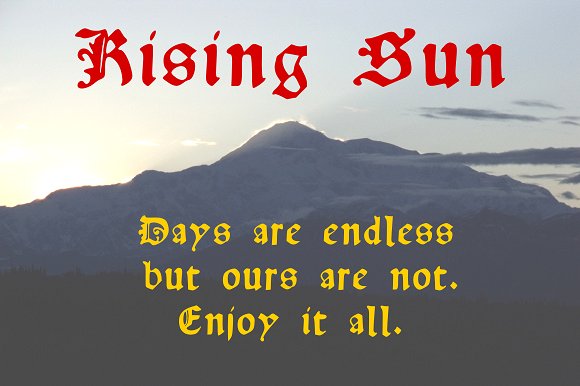
Rising Sun Font
Unveiling Rising Sun Font: A Journey Through Time and Typography
In a world where digital communication reigns supreme, fonts hold the power to transform words into art, to evoke emotions, and to transport readers to different eras and cultures. Enter Rising Sun Font, a captivating blackletter font family that takes you on a journey through time and typography.
Crafted by Proportional Lime, Rising Sun Font draws inspiration from the Soleil d'or printing concern in Paris, one of the few printing businesses that dared to challenge the norm by embracing blackletter printing while the rest of the Parisian printers clung to humanist-influenced Roman typefaces. This bold move, a stroke of genius, marked one of the earliest instances of "retro" design, tapping into the desires of conservative northern Europe, who held on to the traditional blackletter styles amidst the rising popularity of Roman types.
With over 900 meticulously defined glyphs, Rising Sun Font captures the essence of blackletter artistry, embodying the intricate details and sweeping curves that define this timeless genre. Its bold strokes create a striking visual impact, while its delicate serifs add a touch of elegance and sophistication.
Whether you're a seasoned designer seeking to add a touch of history to your projects or a creative enthusiast looking to make a statement, Rising Sun Font is your perfect companion. Its versatility knows no bounds, seamlessly adapting to a wide range of design applications. From logos and branding to posters and invitations, Rising Sun Font transforms ordinary text into captivating works of art.
But Rising Sun Font is more than just a font; it's an experience. It's a gateway to a bygone era, where the written word was not just a means of communication but a form of artistic expression. It's a chance to connect with the past, to embrace tradition, and to create something truly unique and memorable.
So, embark on this typographic journey with Rising Sun Font. Unleash your creativity, let your words dance with history, and leave an indelible mark on the world of design. As you immerse yourself in the world of Rising Sun Font, you'll discover a new appreciation for the art of typography, a deeper connection to the past, and an endless source of inspiration for your future creative endeavors.